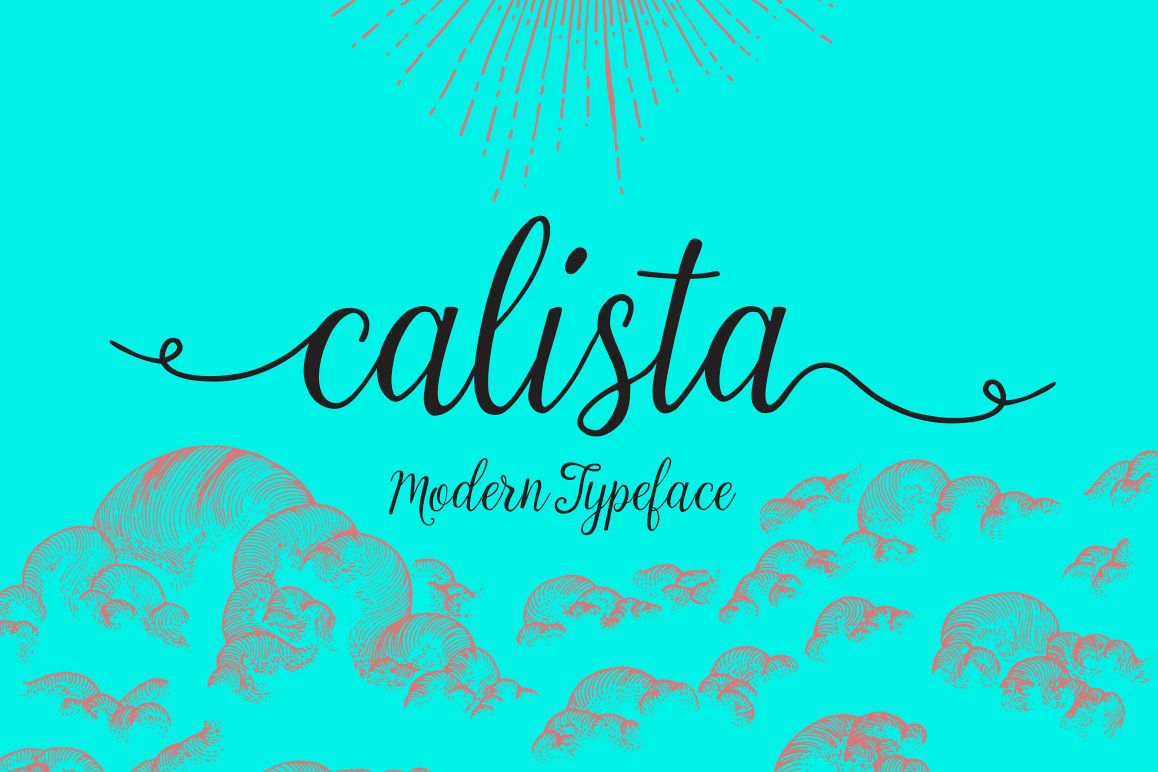
Calista Script Font
Calista Script
Calista Script is handwritten stylish copperplate calligraphy fonts, combines from copperplate to contemporary typeface with a dancing baseline, classic and elegant touch. Can be used for various purposes.such as headings, signature, logos, wedding invitation, t-shirt, letterhead, signage, lable, news, posters, badges etc.
Calista Script features 440+ glyphs and 215 alternate characters. including initial and terminal letters, alternates, ligatures and multiple language support.